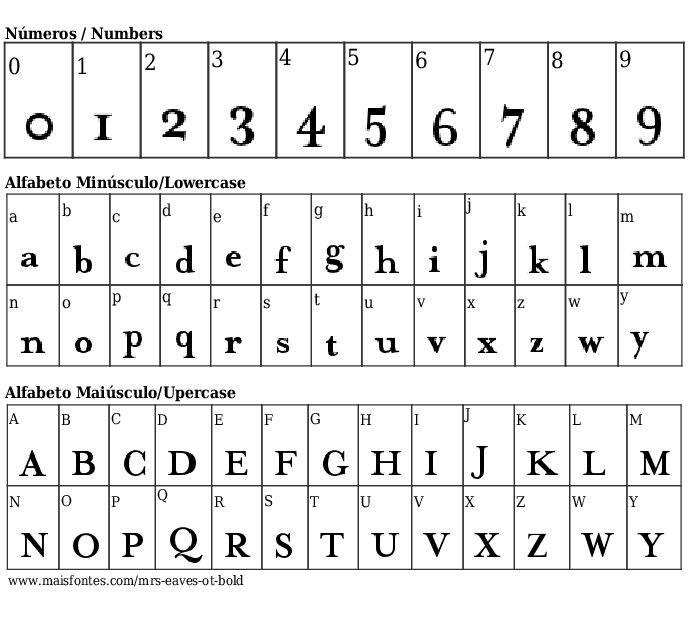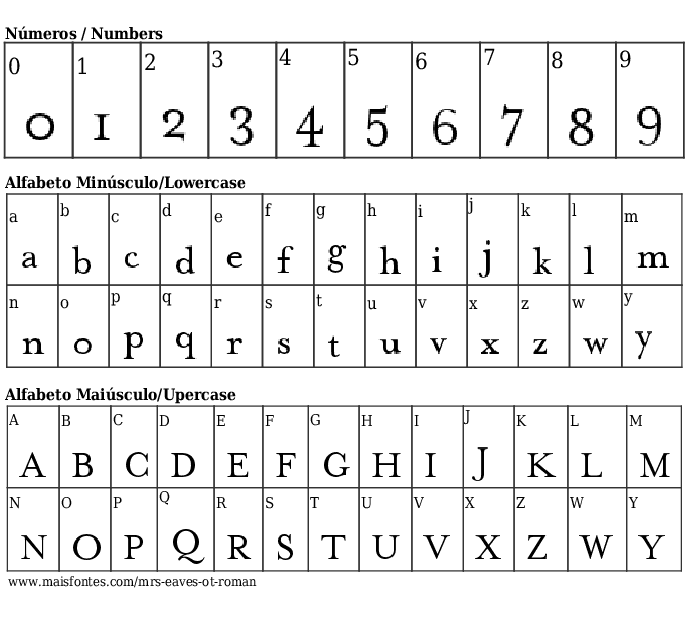
You can use the mrs eaves ot italic to create interesting designs, covers, shop and store name and logos. Mrs eaves was named after baskerville’s live in housekeeper, sarah eaves, whom he later married.
Eaves ot roman font is a transitional serif typeface designed through zuzana licko in 1996.
Free to download mrs eaves font is quite amazing with the contrast between thin and thick strokes. Download more fonts similar to mrs eaves ot roman typeface in category: You can use the mrs eaves ot roman to create.
He produced the font in 1957 england, birmingham and the font name is after his wife name sarah eaves. It was styled after baskerville, the famous transitional serif typeface designed in 1757 by john baskerville in birmingham, england. Eaves font which was designed by zuzana licko in 1996.
In translating this classic to today's digital font technology, i focused on capturing the warmth and softness of letterpress printing that often occurs due to the 'gain' of impression and ink spread. Many programs display new fonts only after restarting. Eaves is a typeface that was designed in 1996 by zuzana licko, who used baskerville as inspiration to make the new font transitional serif.
In translating this classic to today's digital font technology, i focused on capturing the warmth and softness of letterpress printing that often occ. Mrs eaves ot font family. It is a member of the serif font family.